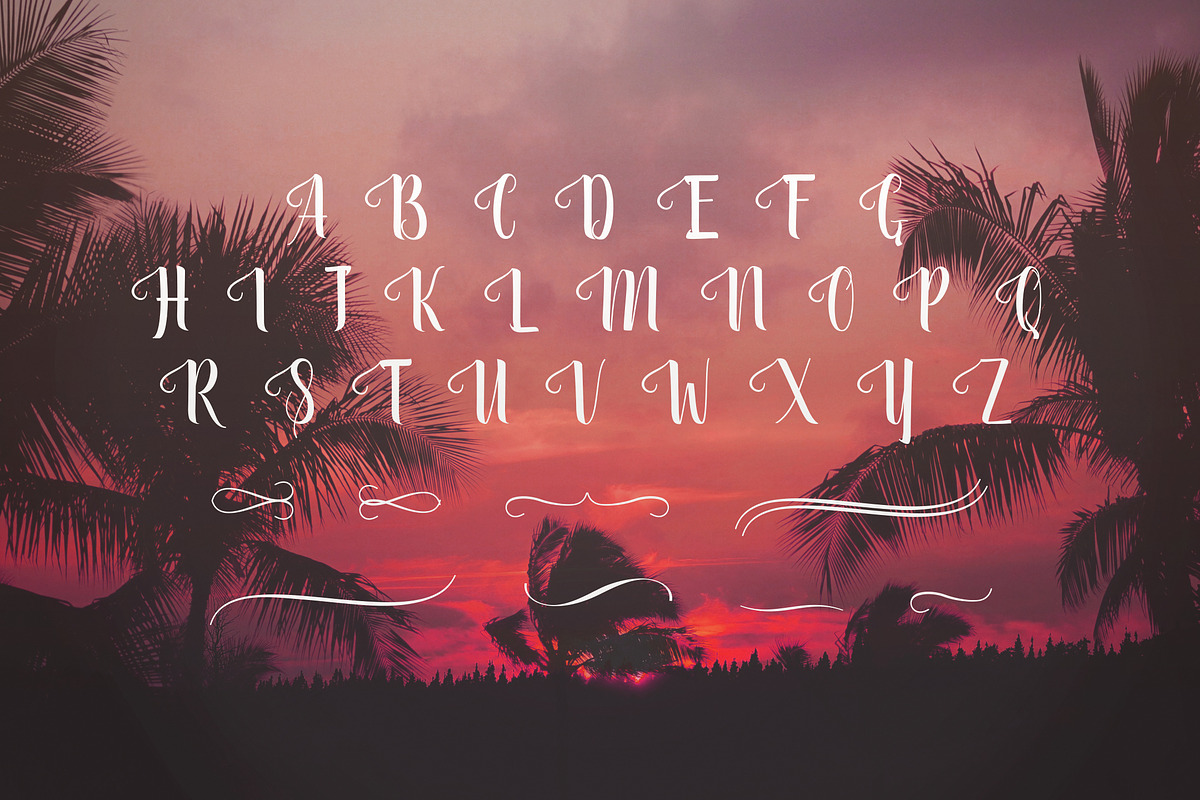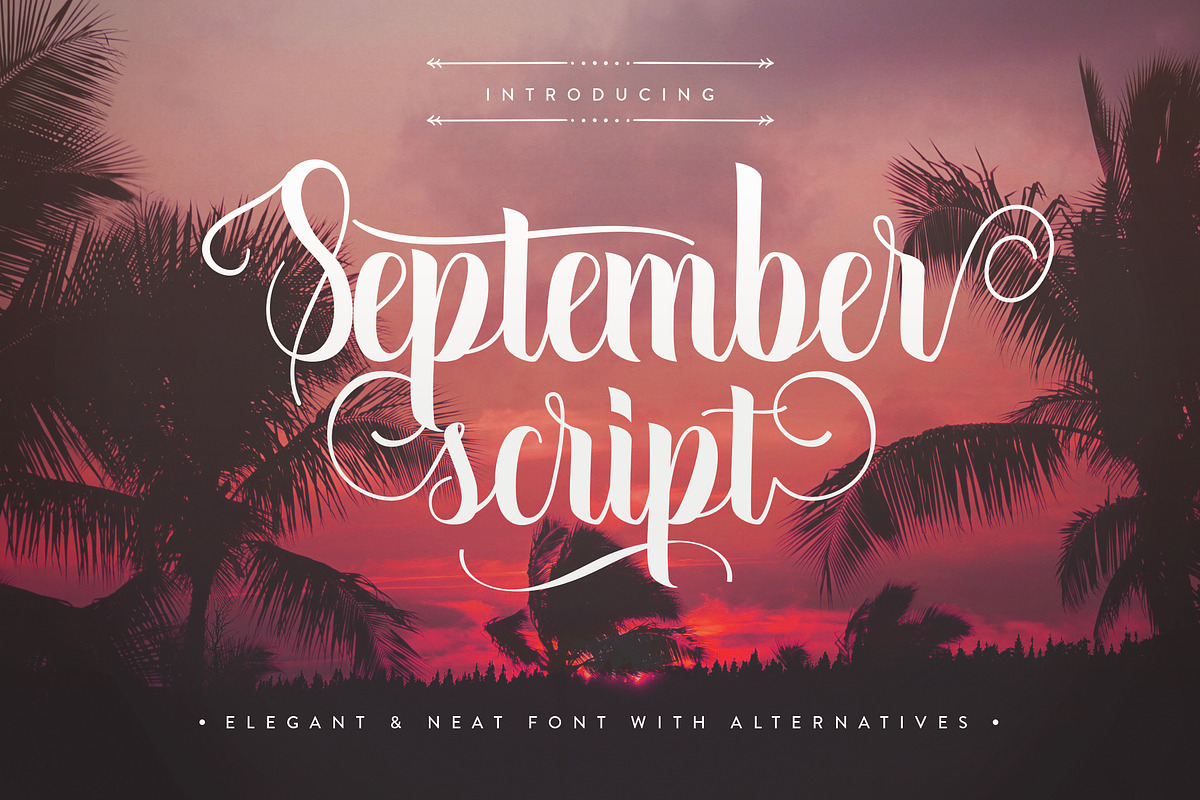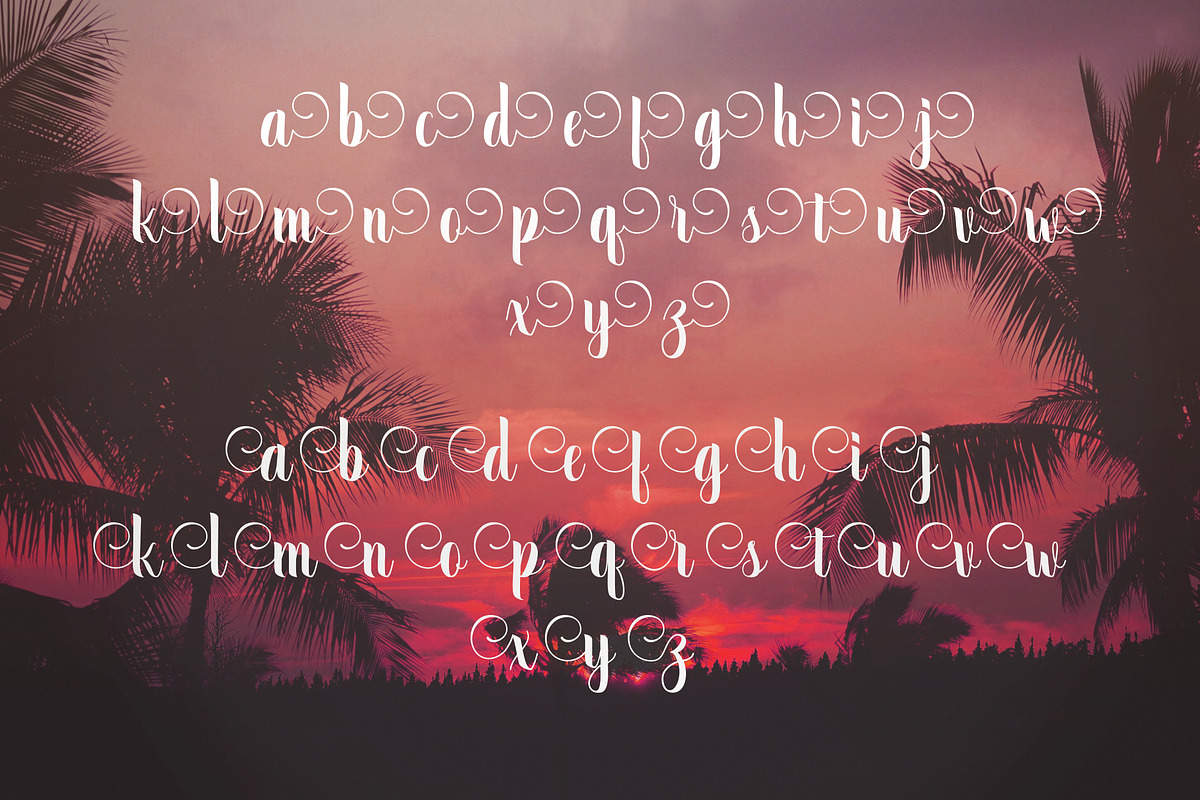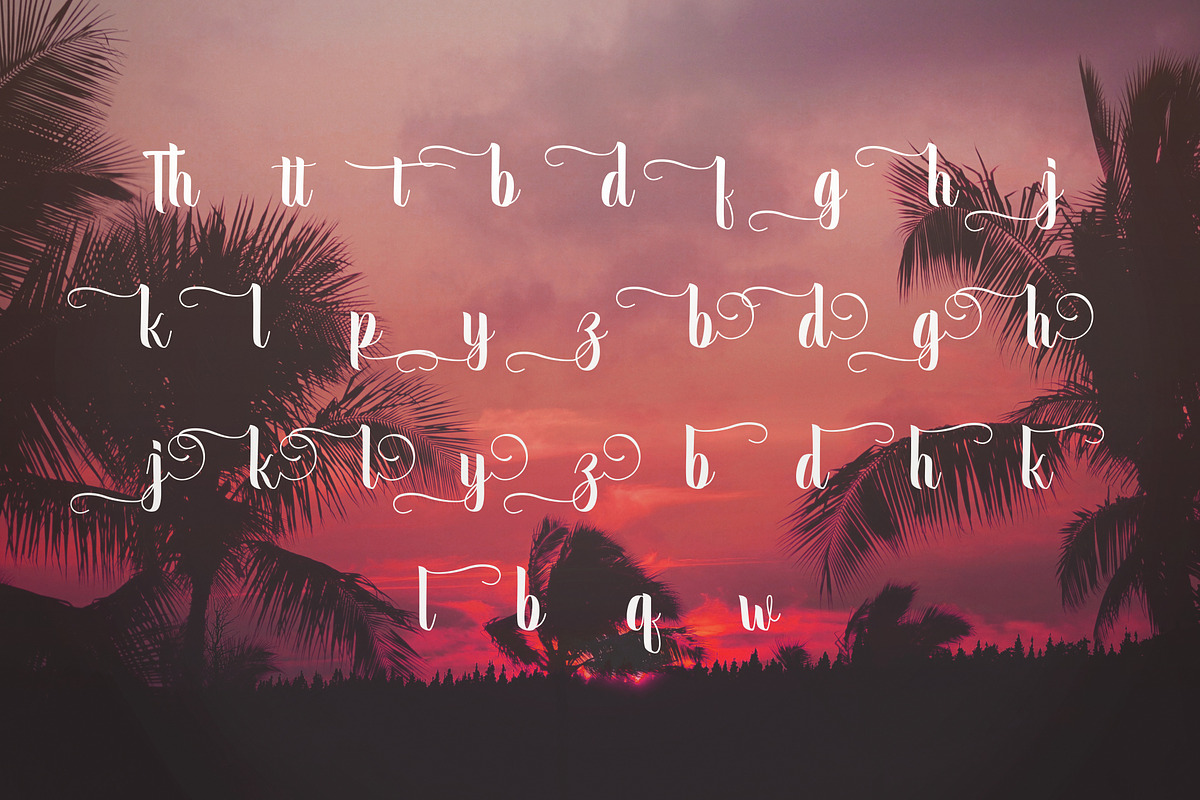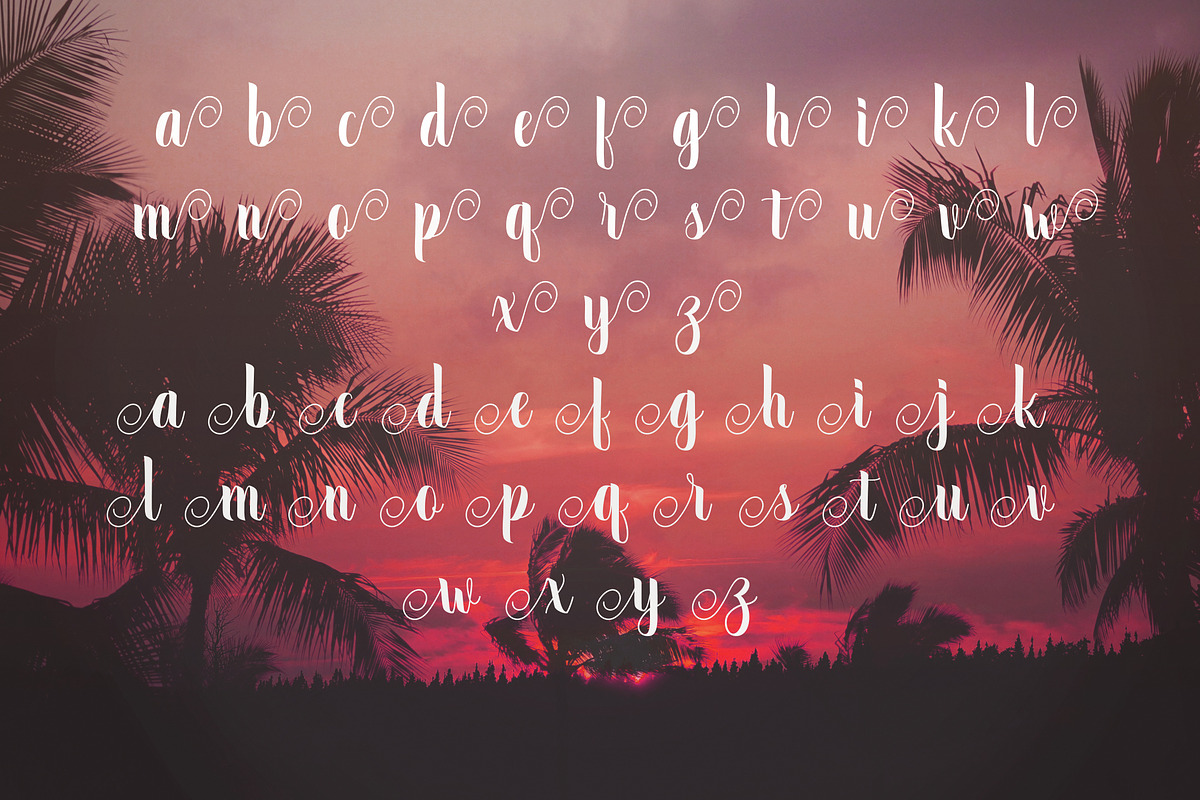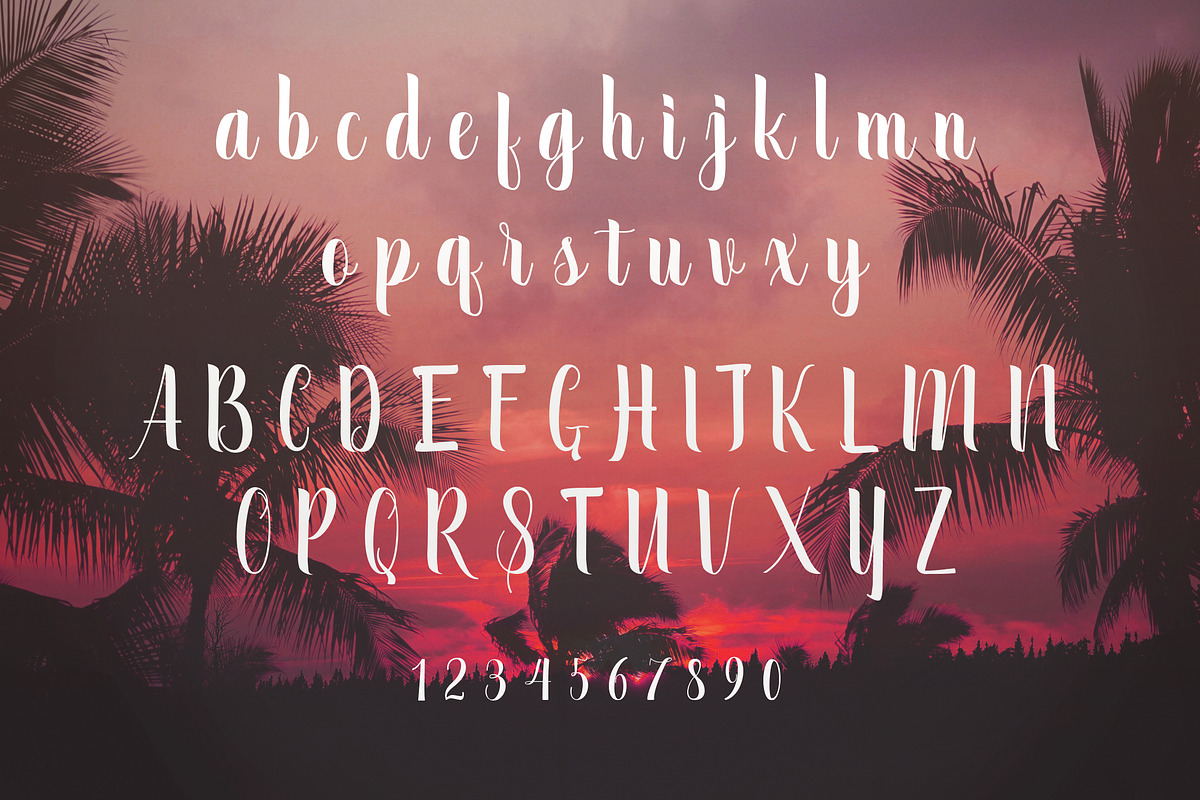
September Script
September Script by Font Bundles is a font selected for branding, posters, packaging, typography.
- PUA encoded and with lots of alternates, swirls and swashes September Script is a must have font for any typography enthusiast.
September Script by Font Bundles fits naturally into Branding, posters, packaging, typography.